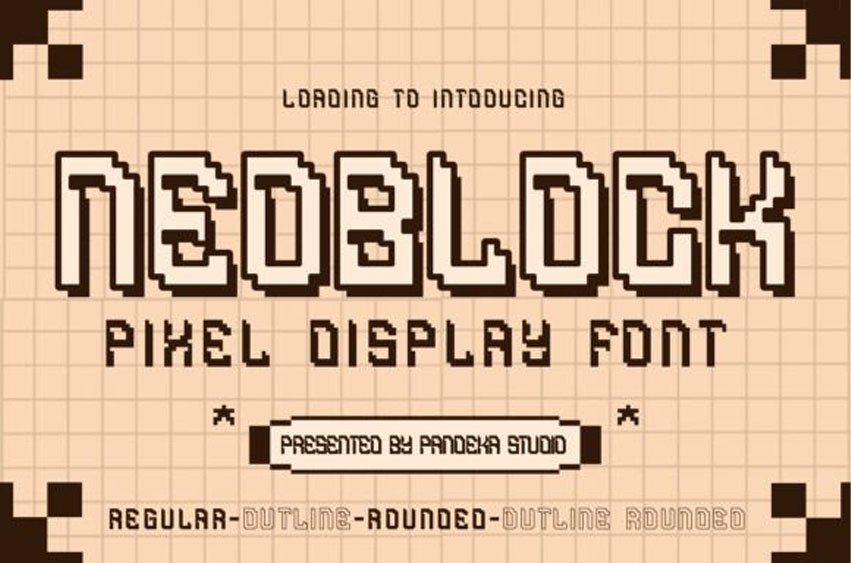
Neoblock Font
Neoblock Font is a pixel-perfect display font designed to capture the essence of retro gaming and digital aesthetics.
Combining sharp, blocky shapes with modern readability, Neoblock is ideal for game design, posters, logos, and digital media projects that need a bold and nostalgic pixel style.